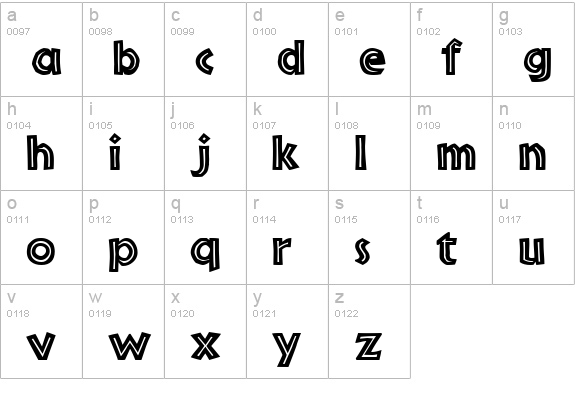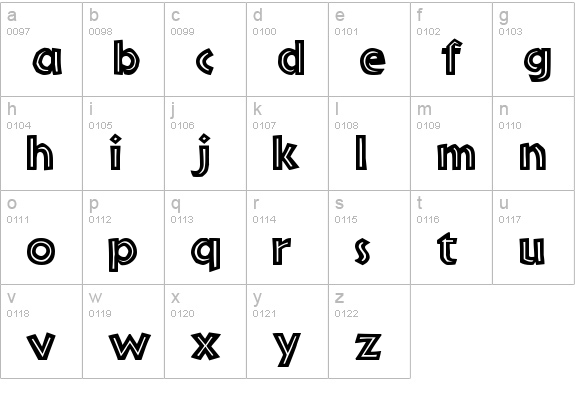
Bride InlineAlt Font Details
Bride InlineAlt font is a stunning display typeface that exudes elegance and sophistication. With its delicate lines and intricate details, this font is perfect for adding a touch of grace to any project. The unique inline design of the letters gives Bride InlineAlt a modern yet timeless feel, making it versatile for a wide range of design applications. What sets Bride InlineAlt font apart is not only its beauty but also the fact that it is available for free download at FontsMarket.com. This means that you can easily access this exquisite font and use it in your designs without any cost. Whether you're working on wedding invitations, branding materials, or any other creative project, Bride InlineAlt font is sure to make a statement and elevate your design to the next level. Download it today and add a touch of elegance to your creations.